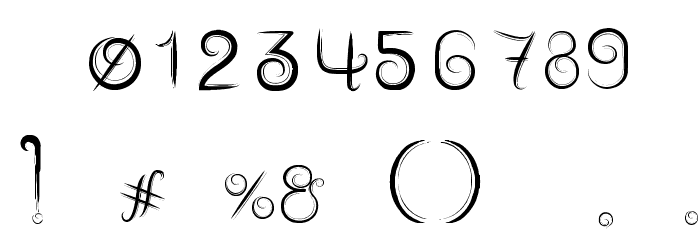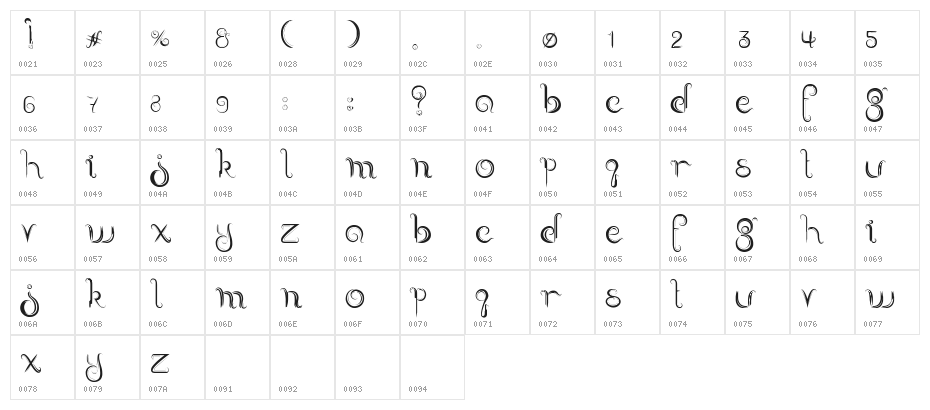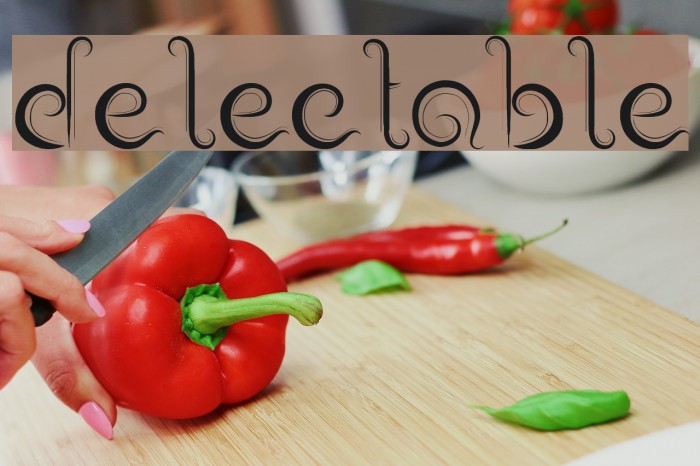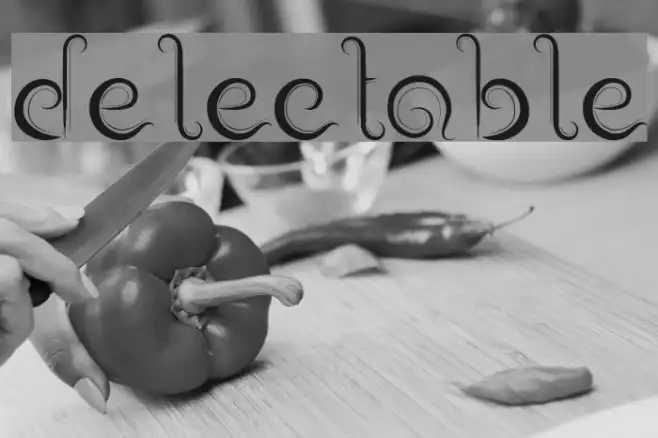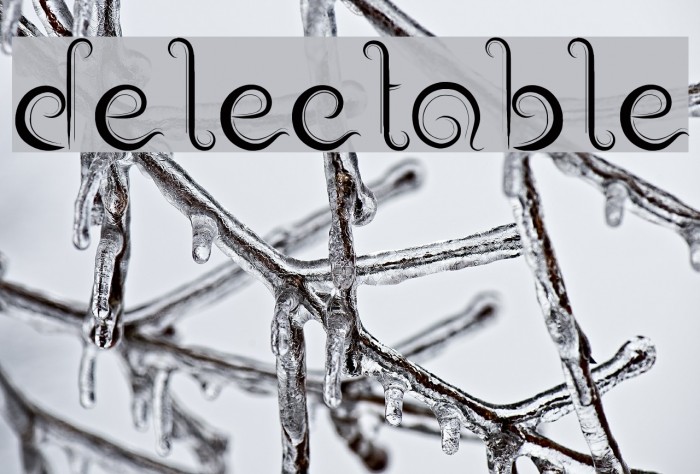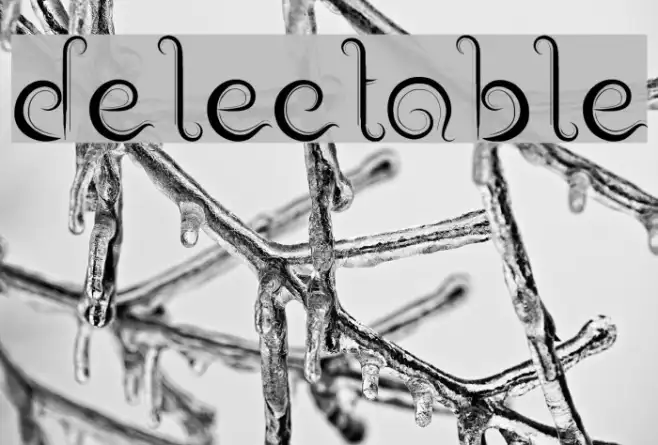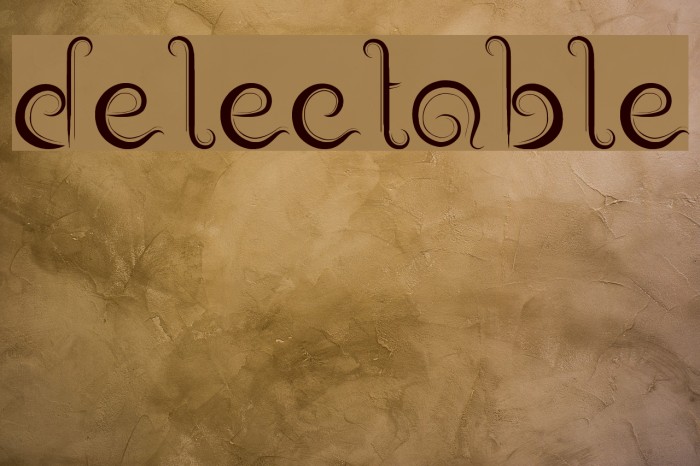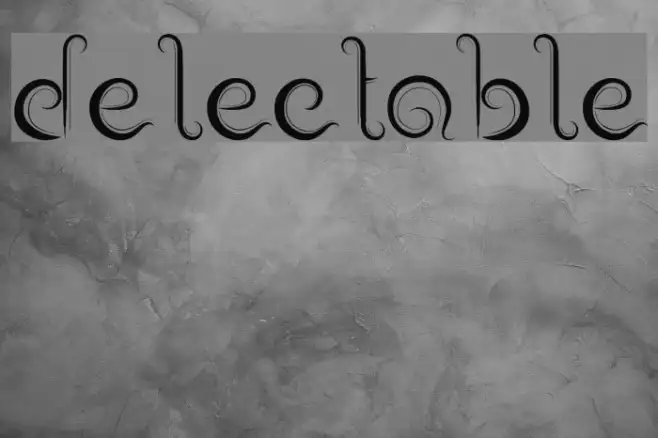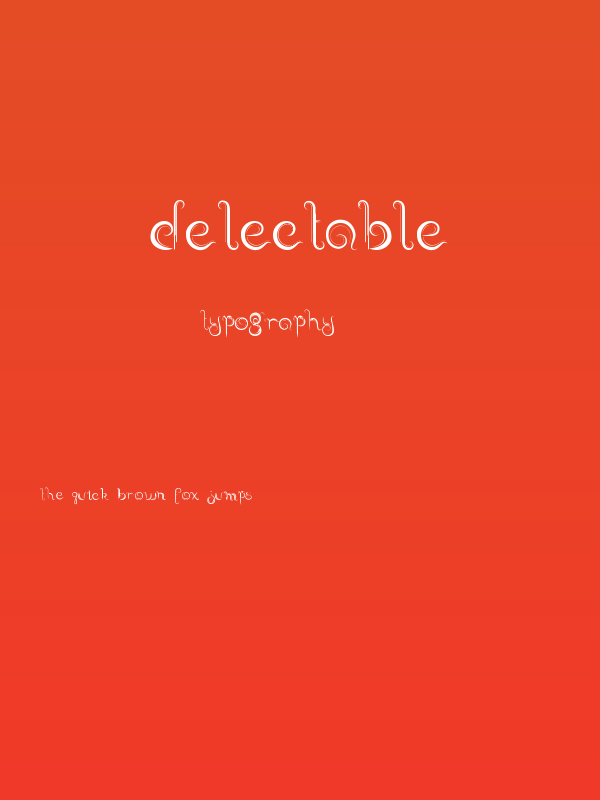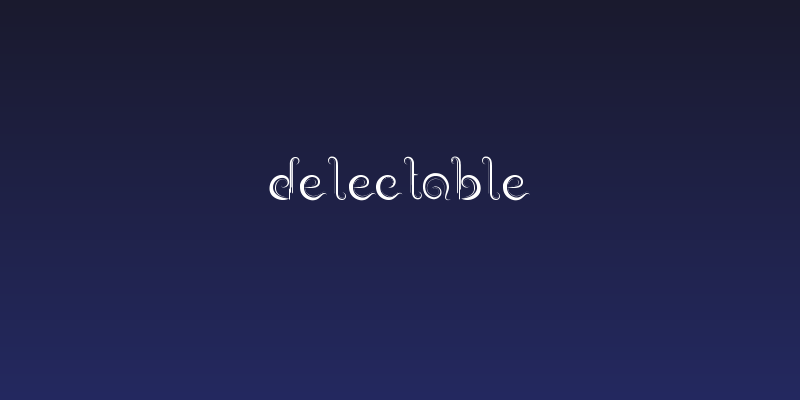
delectable Font
delectable Description
This font features a unique and artistic design with a blend of modern and decorative elements. The characters are crafted with elegant curves and loops, creating a sense of movement and fluidity. The strokes vary in thickness, adding a dynamic contrast that enhances the visual appeal. The lowercase and uppercase letters maintain a consistent style, while the numerals and special characters complement the overall aesthetic. This font's intricate details and stylish flair make it stand out, offering a creative touch to any project.
| Proposed Projects | Ideal for branding, invitations, artistic posters, and creative design projects. |